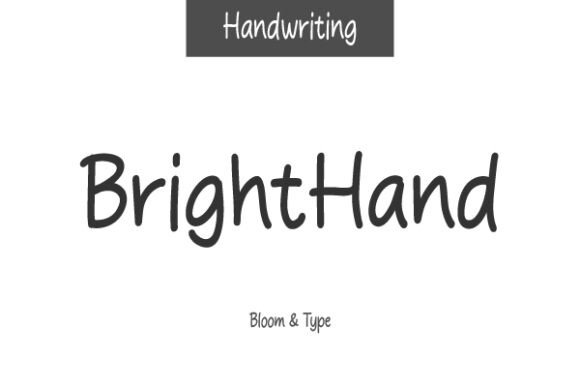
Introducing Brighthand Font: The Perfect Blend of Casual Elegance and Modern Charm
In the world of typography, fonts play a crucial role in conveying the tone and personality of a brand or design. If you’re looking for a font that exudes a relaxed, friendly, and approachable vibe, look no further than Brighthand Font. This casual handwritten font is designed to bring a warm and inviting touch to your designs, making it perfect for a wide range of applications, from quotes and branding to packaging and social media posts.
The Characteristics of Brighthand Font
So, what makes Brighthand Font so special? For starters, its smooth strokes and natural curves give it a distinctly handmade feel that’s both authentic and charming. The well-balanced letterforms ensure that the font is not only aesthetically pleasing but also highly readable, making it suitable for use in a variety of contexts. Whether you’re looking to add a personal touch to your branding or create eye-catching social media graphics, Brighthand Font is the perfect choice.
Capturing the Essence of Handwriting with a Modern Twist
Brighthand Font is more than just a casual handwritten font – it’s a masterful blend of traditional handwriting charm and modern typographic flair. The font’s effortless flow and versatile character make it easy to use in a wide range of design applications, from elegant quotes and captions to bold branding and packaging. With Brighthand Font, you can add a touch of warmth and personality to your designs, setting them apart from the crowd and leaving a lasting impression on your audience.
Ideal Applications for Brighthand Font
So, where can you use Brighthand Font to add a touch of magic to your designs? The possibilities are endless! Here are just a few ideas to get you started:
- Quotes and Captions: Add a personal touch to your inspirational quotes, sayings, and captions with Brighthand Font’s elegant and flowing script.
- Branding and Logo Design: Use Brighthand Font to create a unique and memorable brand identity that reflects your company’s personality and values.
- Packaging Design: Add a touch of warmth and sophistication to your product packaging with Brighthand Font’s charming and approachable style.
- Social Media Graphics: Create eye-catching social media graphics, posts, and stories that showcase your brand’s personality and style with Brighthand Font.
Why Choose Brighthand Font?
With so many fonts to choose from, why should you choose Brighthand Font for your design projects? Here are just a few reasons why Brighthand Font stands out from the crowd:
- Readability: Brighthand Font is designed to be highly readable, even at small sizes, making it perfect for use in a variety of contexts.
- Versatility: With its effortless flow and versatile character, Brighthand Font can be used in a wide range of design applications, from elegant quotes to bold branding.
- Charm: Brighthand Font’s smooth strokes, natural curves, and well-balanced letterforms give it a distinctly charming and approachable personality that’s sure to captivate your audience.
| Font Name | Brighthand Font |
| Author | Bloom & Type |
In conclusion, Brighthand Font is a casual handwritten font that’s perfect for designers and crafters looking to add a touch of warmth and personality to their designs. With its smooth strokes, natural curves, and well-balanced letterforms, Brighthand Font captures the essence of authentic handwriting with a modern finish. Whether you’re looking to create elegant quotes, bold branding, or eye-catching social media graphics, Brighthand Font is the perfect choice. So why wait? Try Brighthand Font today and discover the perfect blend of casual elegance and modern charm!